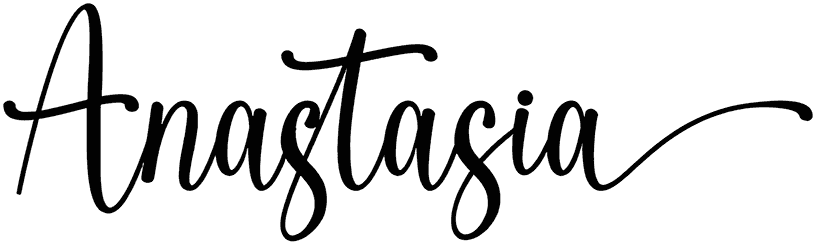
Jhaqlyn Font
Jhaqlyn is a lovely calligraphy font that has most characters except h, j, q, u, and D in a flowing and organic look, which makes it perfect for greeting cards, branding, and poster design. The dream font you’re currently regarding is only one of several in our digital library that is quite similar to this one.
Designed by: Creatype Studio